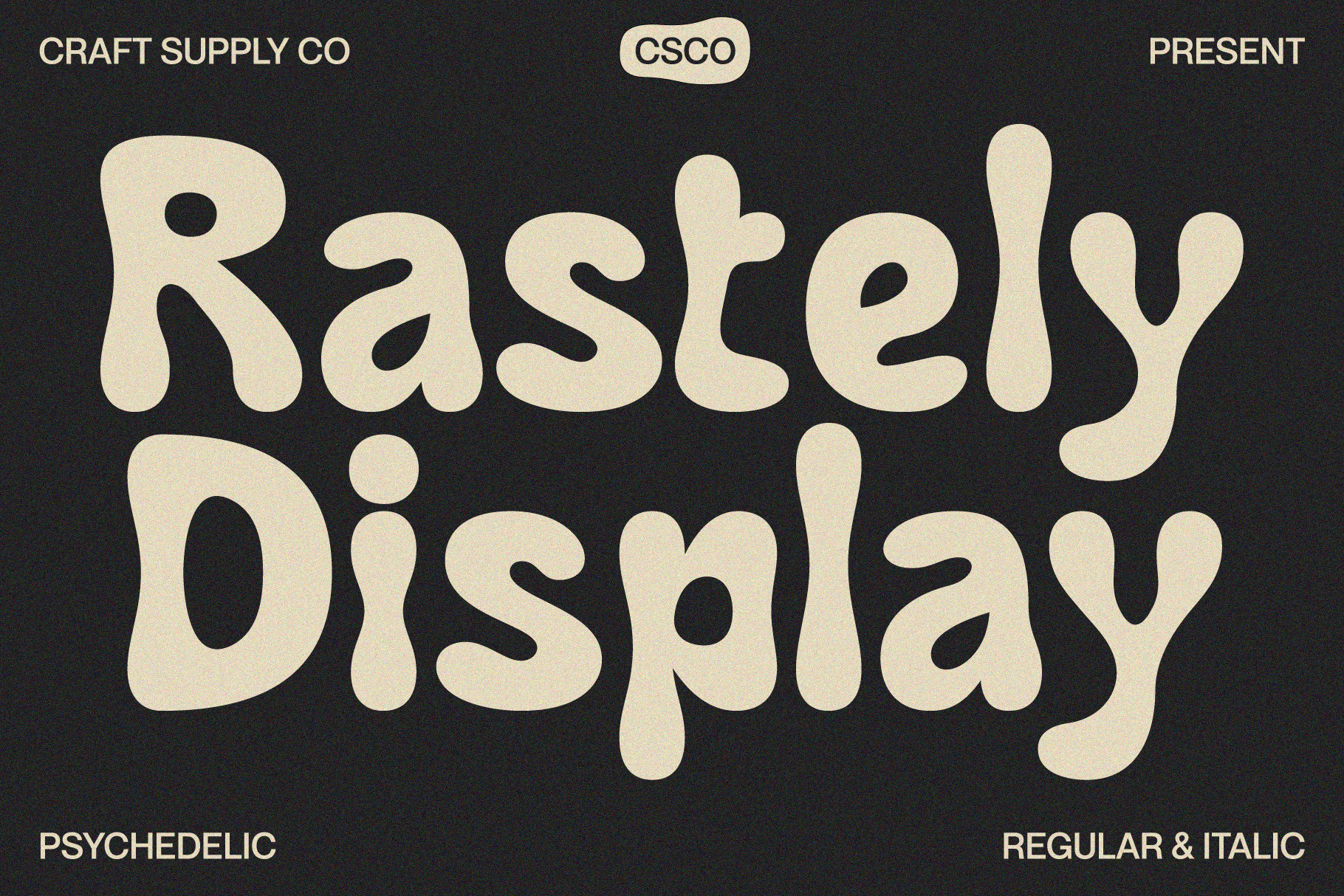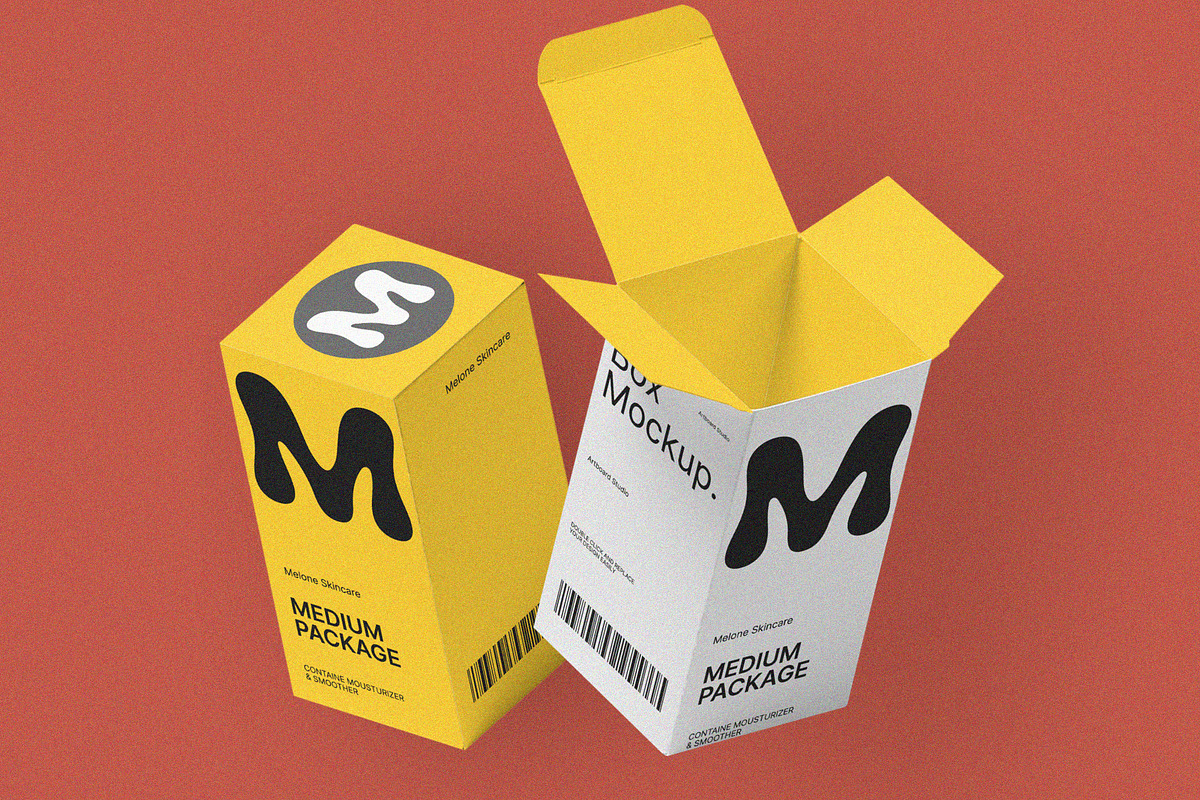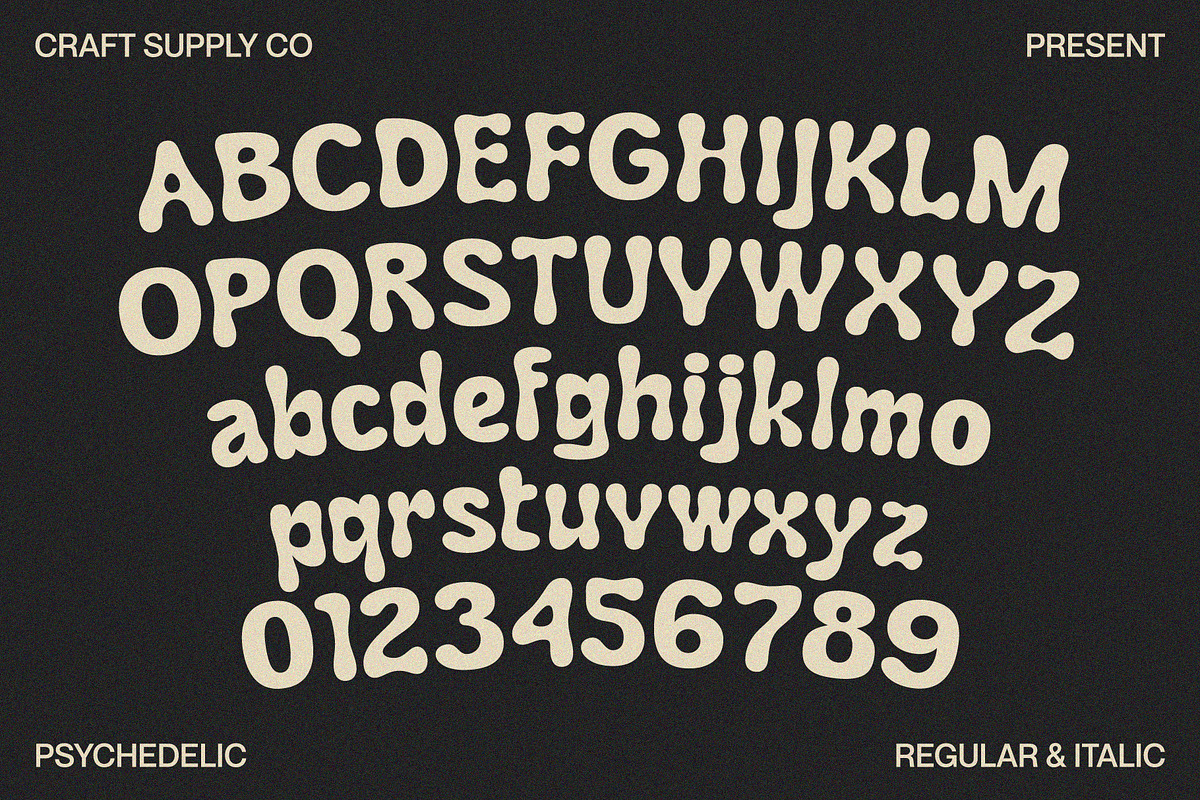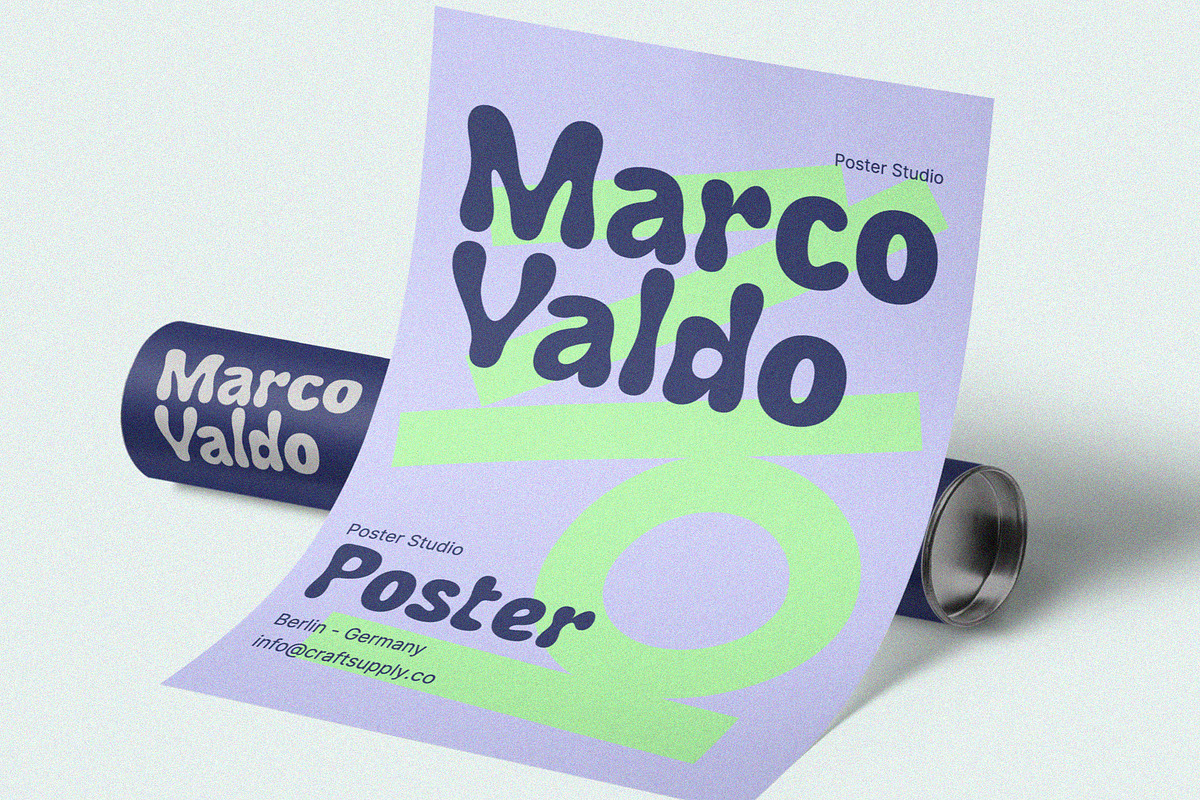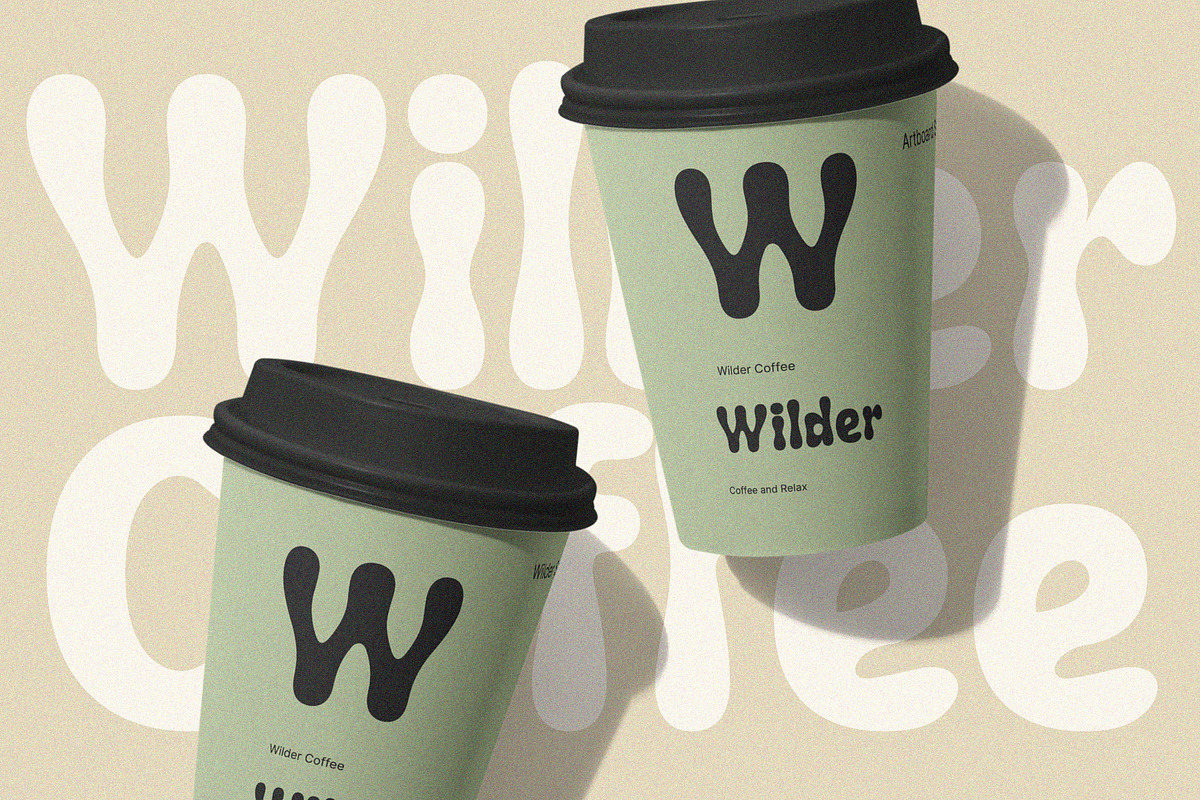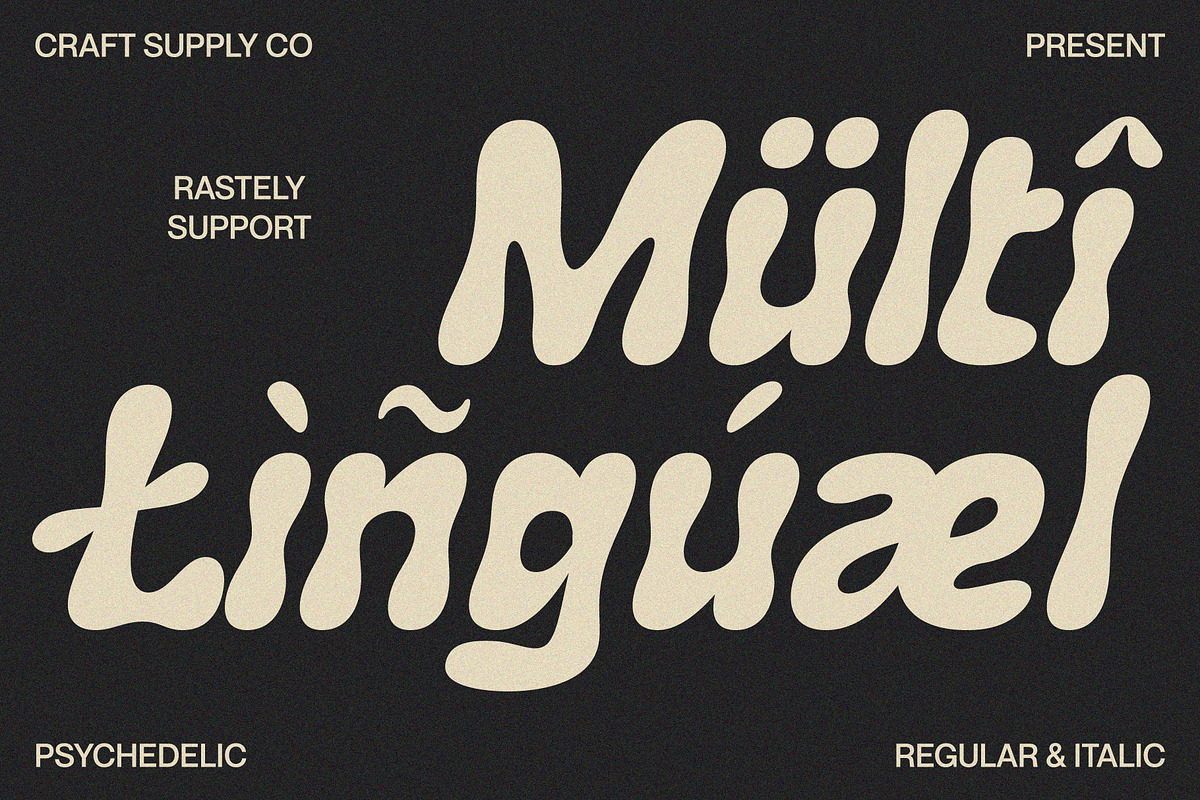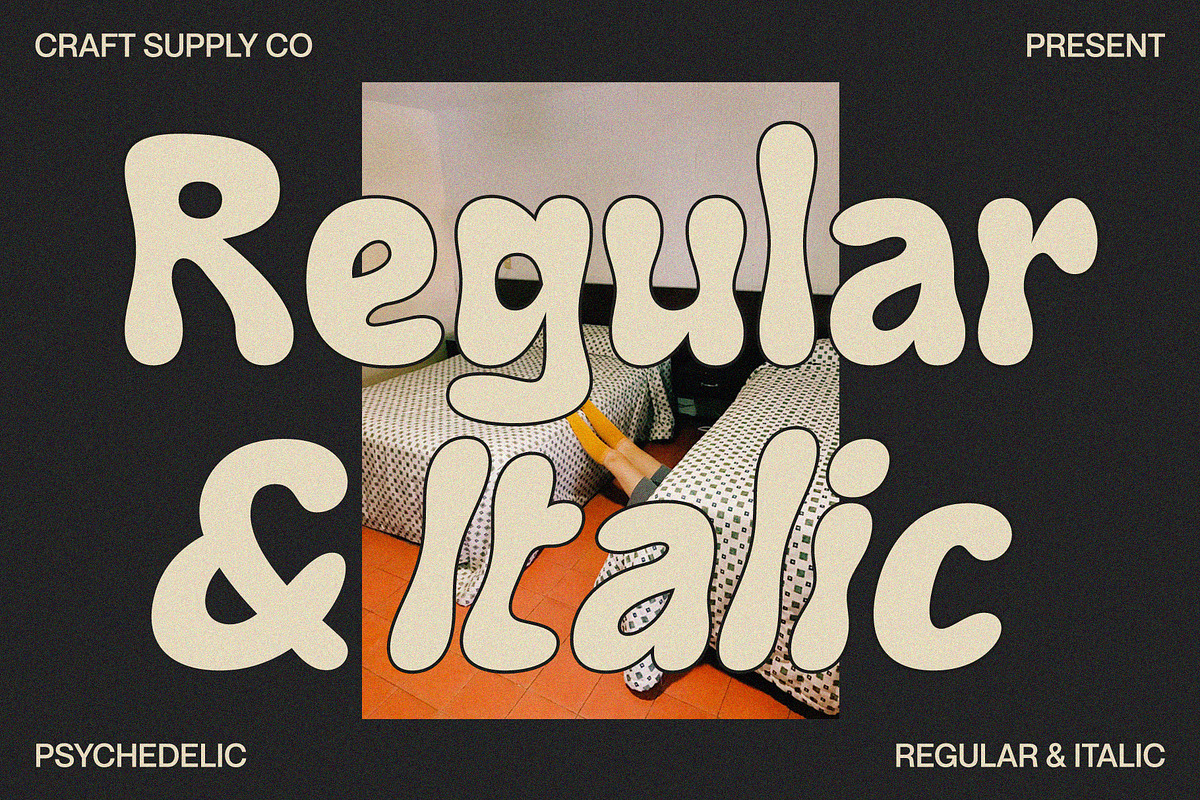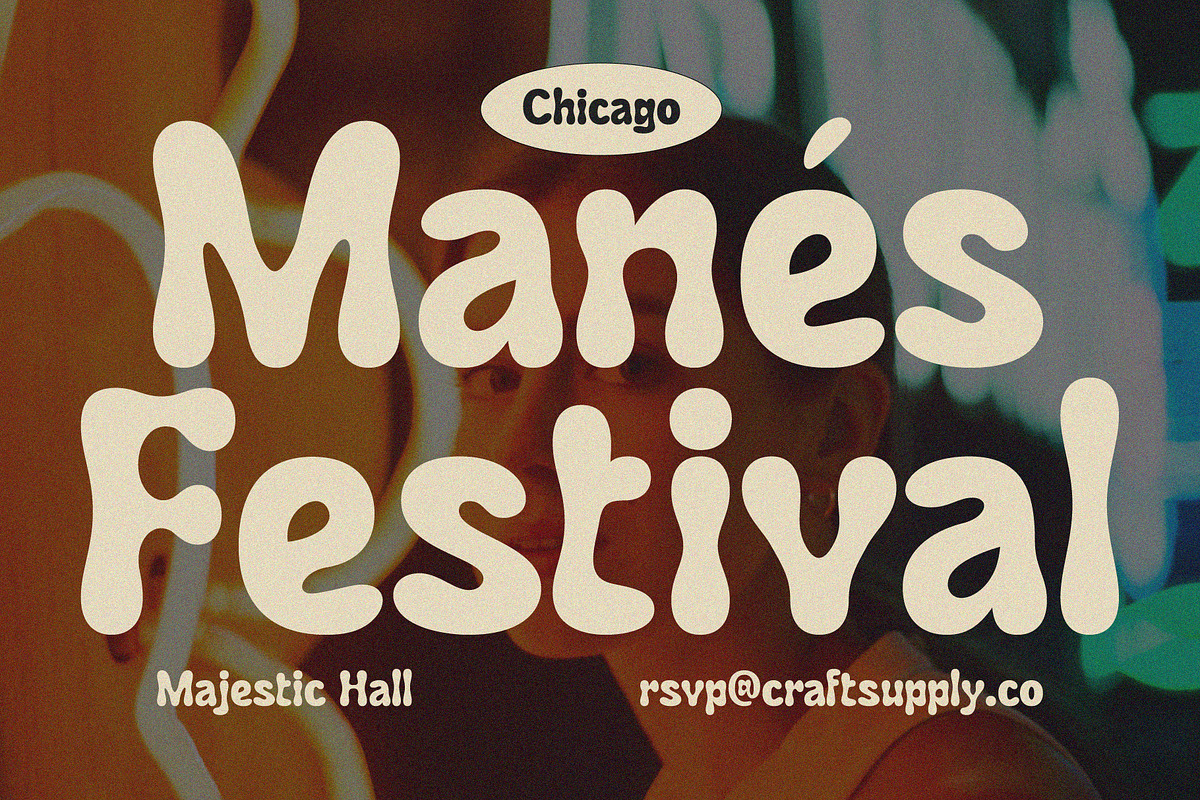
Rastely – Funky Typeface
Explore Rastely – Funky Typeface A Funky Revolution Dive into the rhythmic vibes of Rastely, a font that dances to the funky beats of creativity. With its smooth flow and quirky curves, Rastely doesn’t just spell words; it crafts a vibrant visual rhythm that brings a funky, joyful spirit to any display.
Smooth and Psychedelic Transitioning smoothly from one character to the next, Rastely presents a visual performance that’s delightful and a bit trippy. Inspired by the swirling energies of the psychedelic, it carries a whimsical magic, turning ordinary texts into captivating visual treats.
Friendly Vibes Despite its bold, psychedelic spirit, Rastely carries an air of friendliness. This makes it approachable and versatile, allowing it to connect effectively with various audiences, ensuring that each word resonates with a warm, inviting vibe.
A Symphony of Styles Moreover, Rastely opens the doors to a realm where fun meets fabulous. The typeface is versatile, making it an excellent fit for designs that aim to stand out and capture attention, filling each space with its unique, funky energy.
Unleash Creative Freedom In conclusion, choosing Rastely means choosing a typeface that’s bold, funky, and full of life. It invites you to unleash your creativity, to explore beyond the ordinary display, and to craft designs that resonate with energy, fun, and a touch of psychedelic wonder.